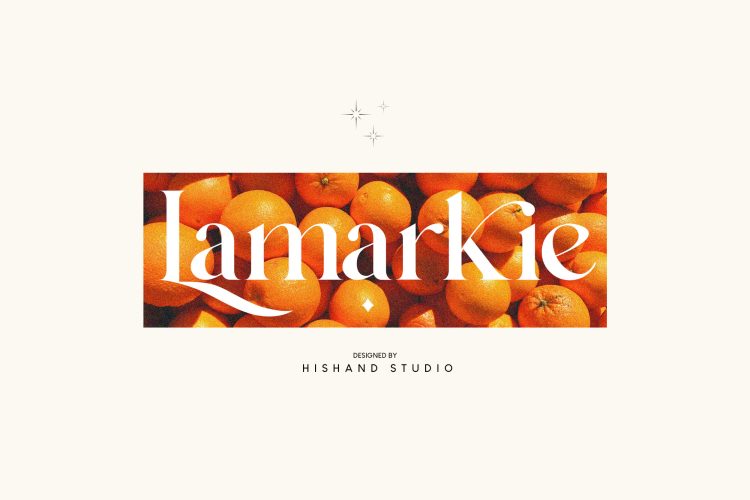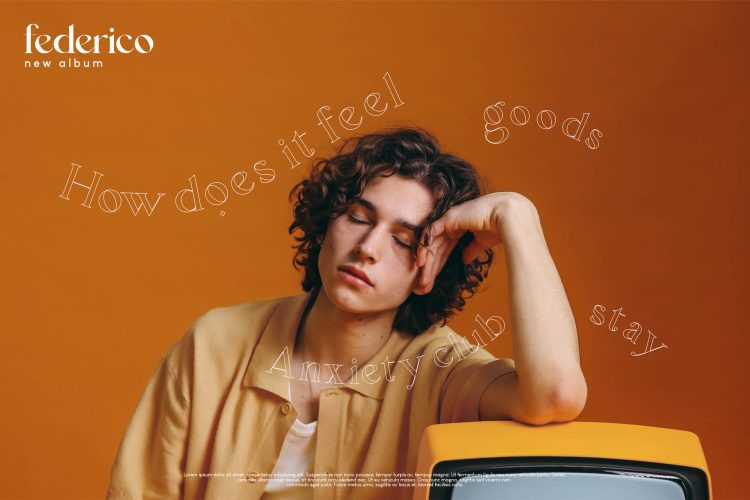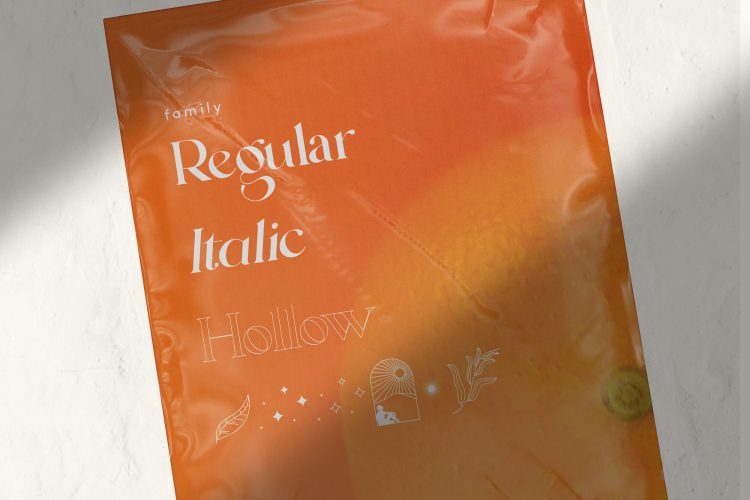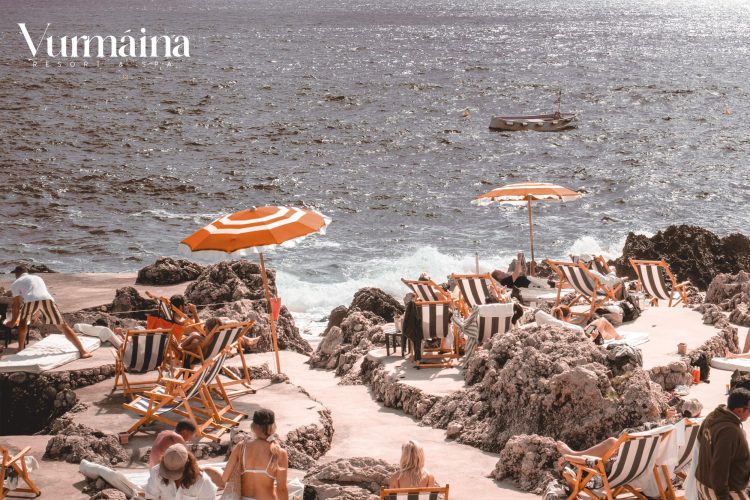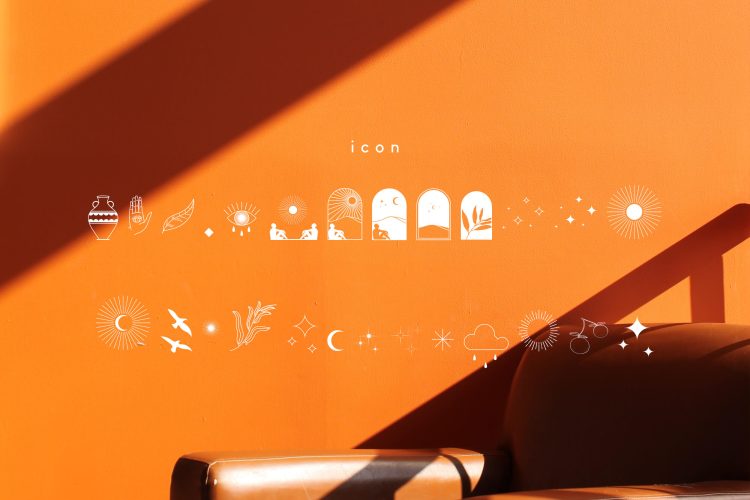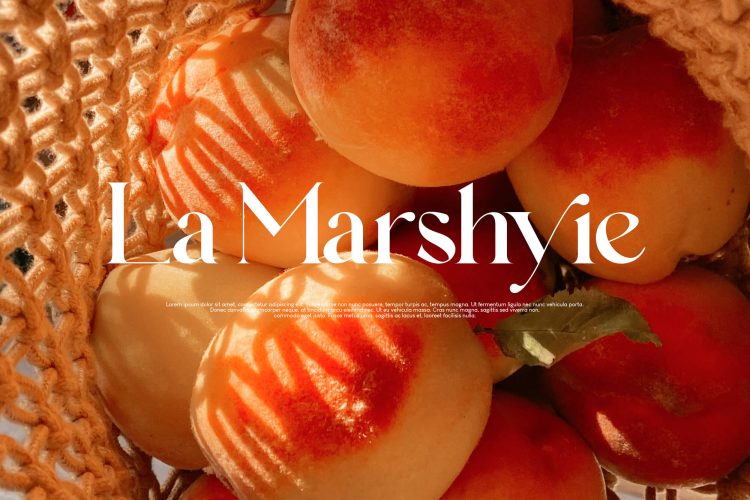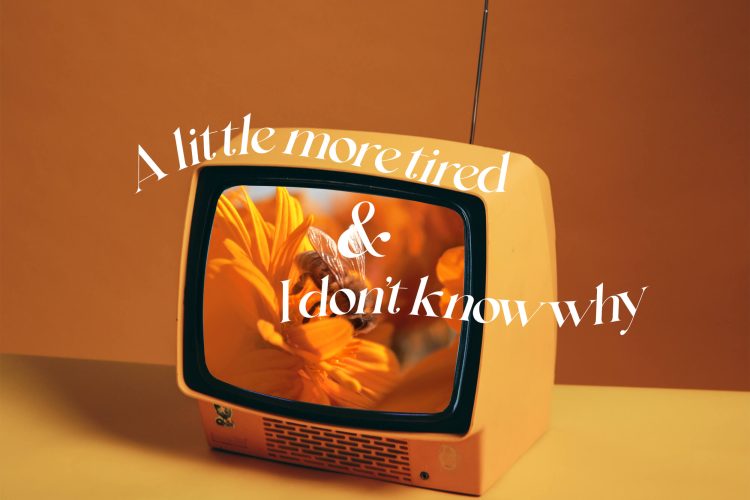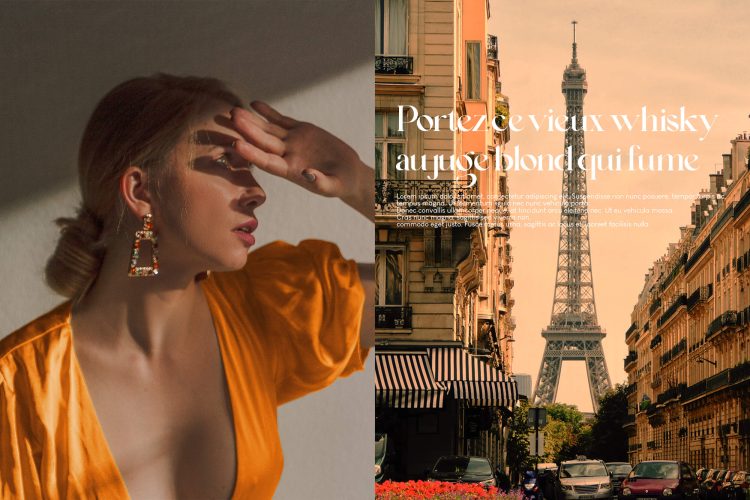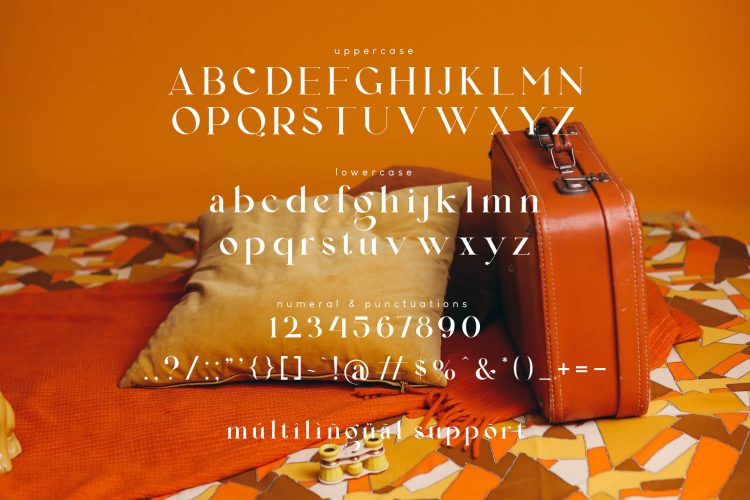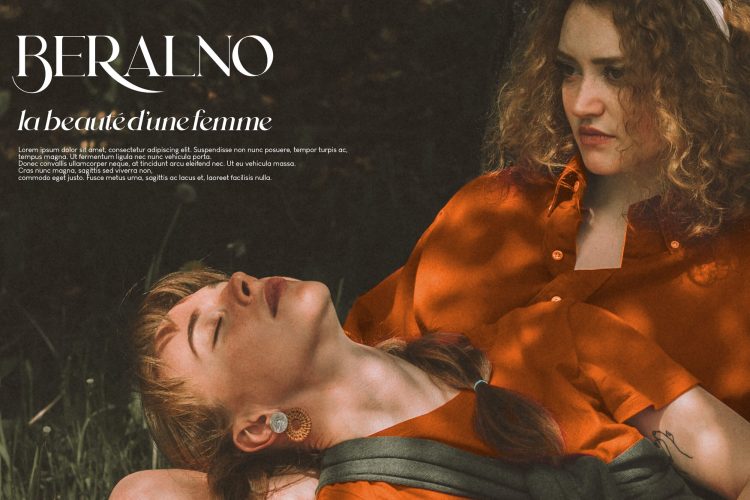
Introducing Lamarkie, a classic yet modern typeface with lots of style. For those who are needing a touch of elegany, stylish, classy, chic, and modernity for your design, this font was created for you!. Complete with
- ligatures
- alternates
- regular
- italic
- hollow
- icon
- kerning
- multilingual support